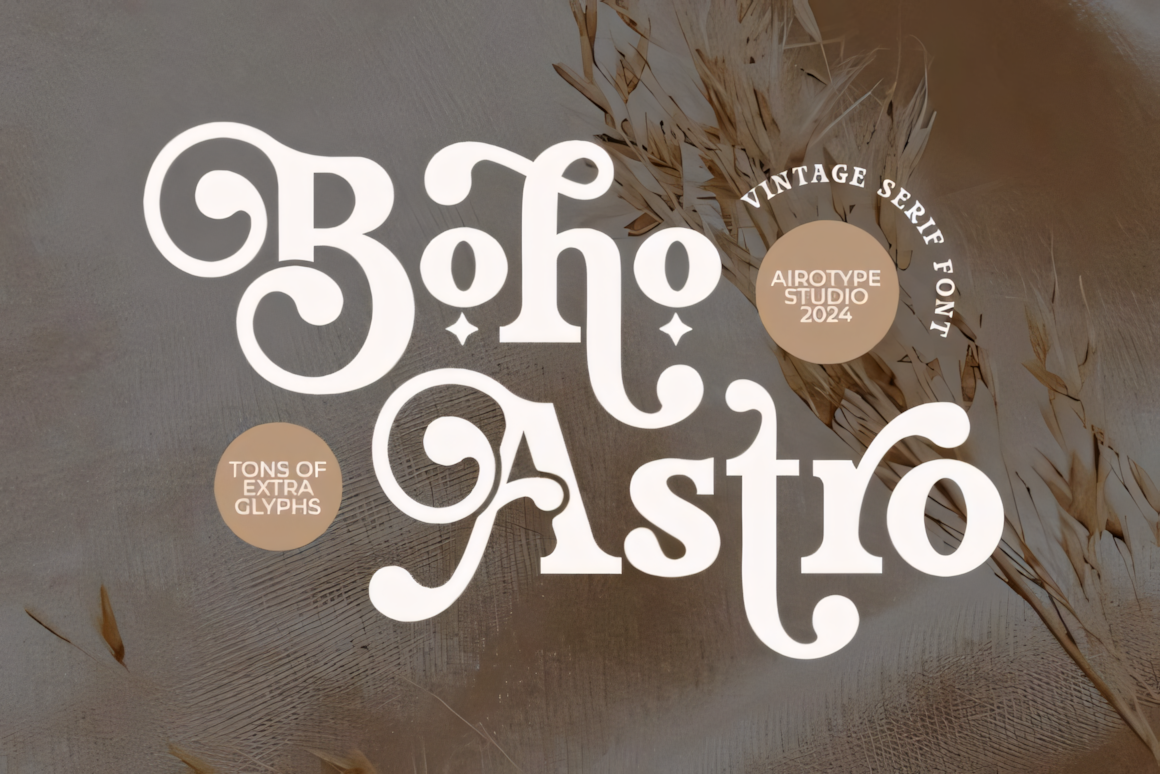
Boho Astro Font
Boho Astro is a bold modern serif font. Boho Astro possess cool elegance with vintage characteristics. Users can access the numerous alternative glyphs of Boho Astro through Font Book on Mac systems and Character Map UWP for PCs. Familiarize yourself with the method to access additional glyphs through the program you are currently using.
This font works perfectly for all projects that need modern vintage styling such as logos along with crafting projects and wedding invitation designs or brand creation and photography work and it suits sticker design and sublimation work and writing quotes too.
Boho Astro Serif Font